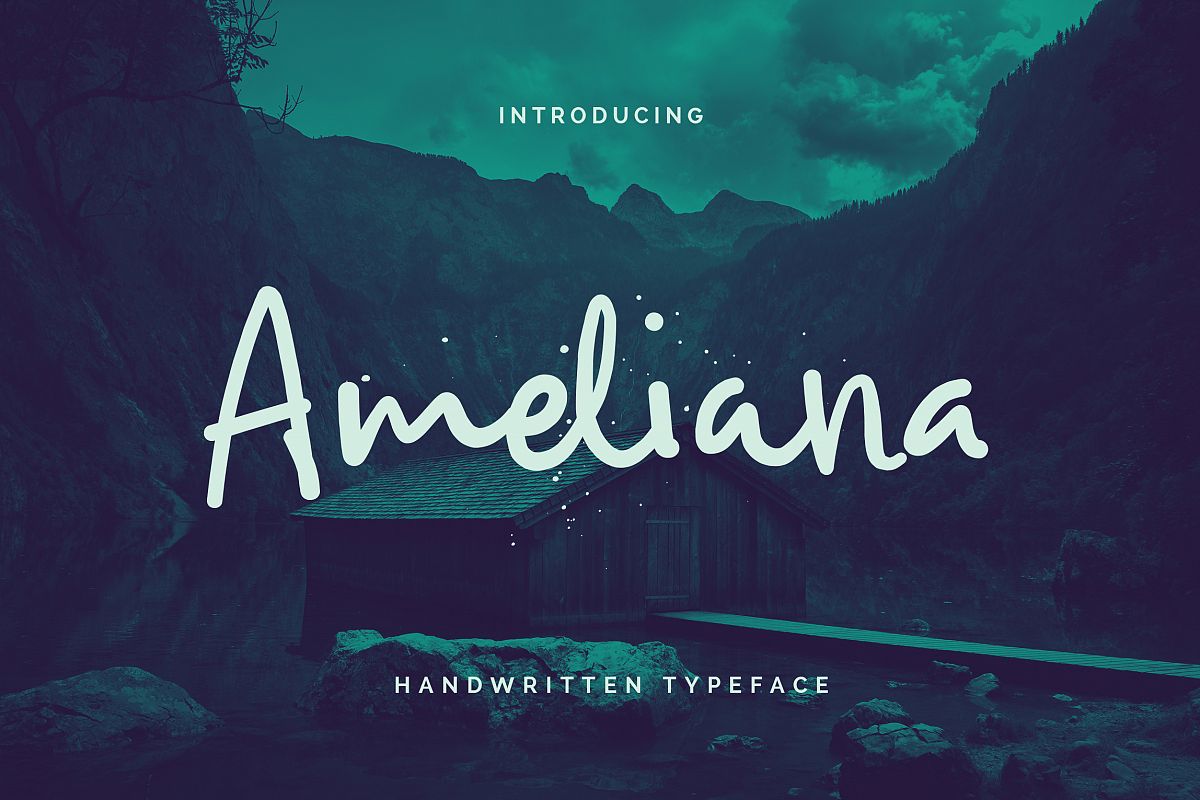
Ameliana Script
Ameliana is a hand-written font from real handwriting. It is carefully developed into a typeface which turn out to have the smooth curves yet still maintain to look like imperfectly perfect personal scribble. This handwritten font is made for cards, prints, logos, branding, and decoration.
Ameliana typeface contains a full set of lower & uppercase letters, a large range of punctuation, numerals, and multilingual support. The font also contains several ligatures, stylistic alternates, and contextual alternates for lower case characters, accessible in the Adobe Illustrator Glyphs panel, or under Stylistic Alternates in the Adobe Photoshop OpenType menu. But If you don't have any opentype specific software, you can still use Ameliana as is with its standard lowercase and uppercase letters.
Ameliana Two also can access in Ameliana Reguler with Stylistic Alternates OpenType Feature.